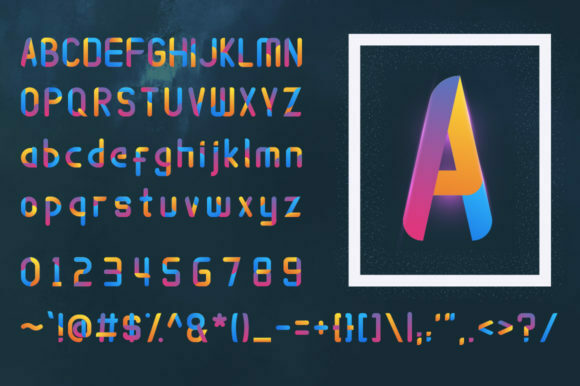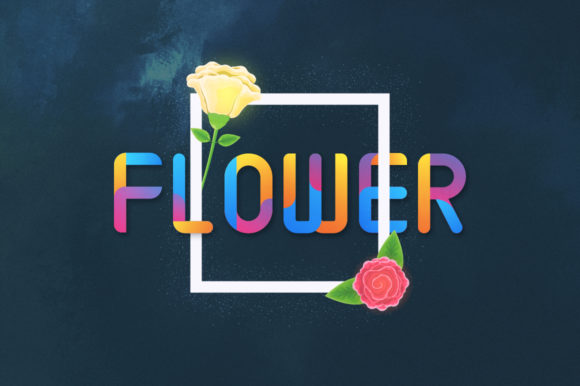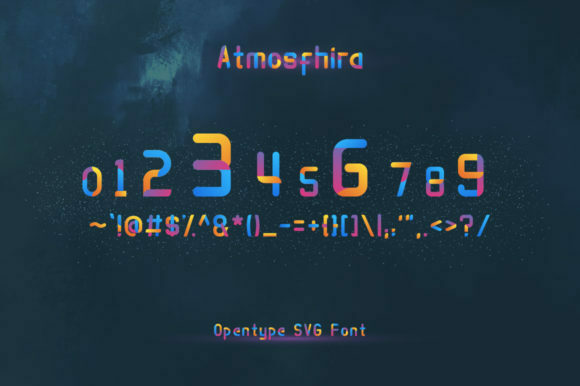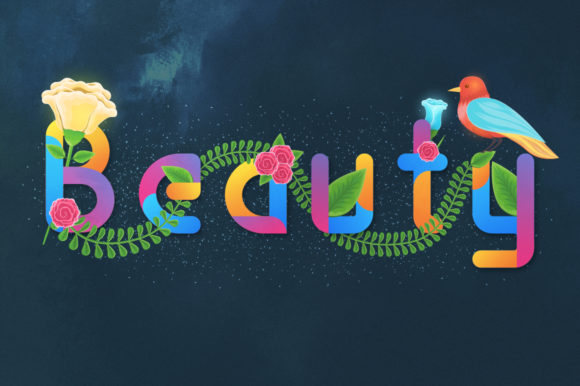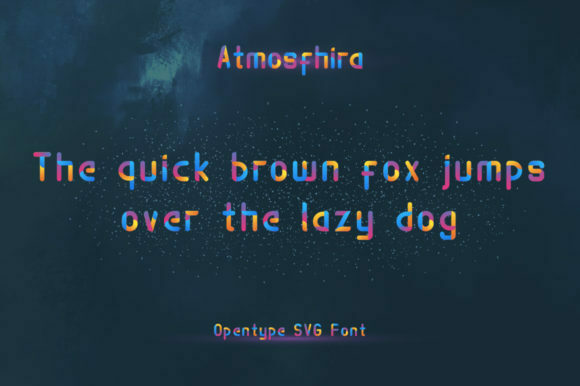
Atmosfhira Font
Atmosfhira is indeed a delightful and whimsical color font that can bring a bold and artistic touch to your designs. With its vibrant colors and unique design, this font is a great choice for displays and creative projects.
If you have the compatible versions of Illustrator and Photoshop, you can explore the full potential of Atmosfhira and enjoy its colorful and whimsical appearance. Incorporate this font into your designs to add a playful and artistic flair that is sure to captivate attention.